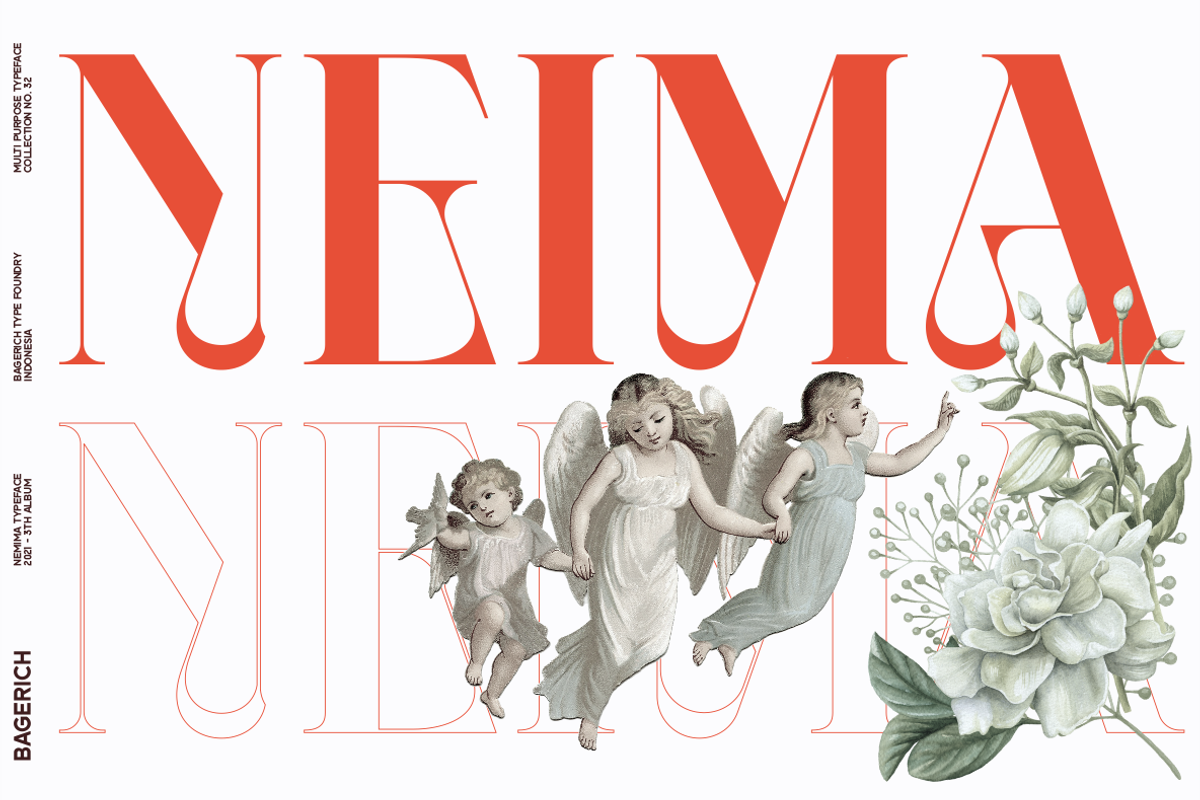
NEIMA Font Free Download is a clean, modern serif typeface that exudes elegance and sophistication. With its balanced proportions, sharp serifs, and minimalist design, this font is perfect for branding, editorial design, web design, and high-end packaging. It blends timeless sophistication with a contemporary edge, making it versatile for various design projects.
Using the NEIMA Font Free Download adds a professional and stylish touch to your projects. Whether you're designing a luxurious logo, crafting an editorial layout, or creating elegant digital content, NEIMA enhances the visual appeal with its refined and modern look.